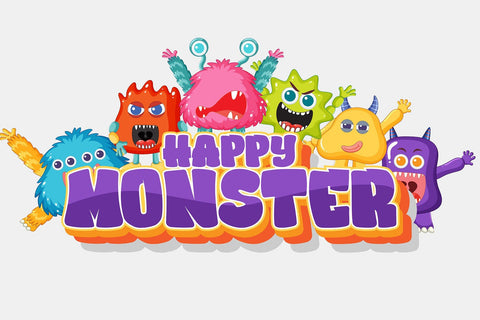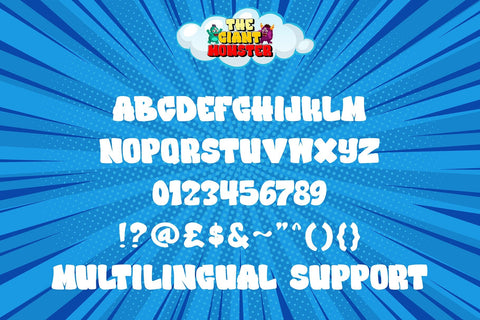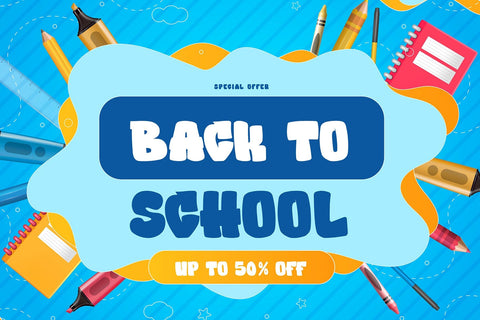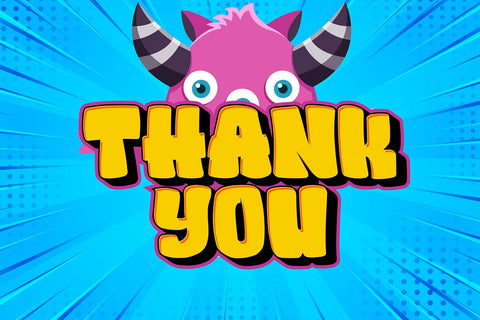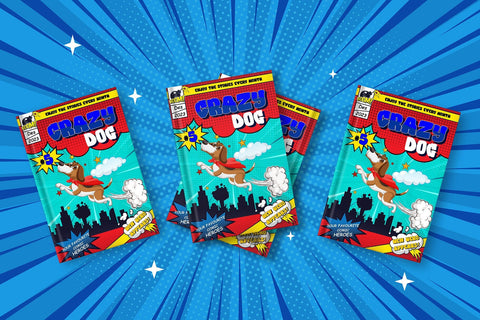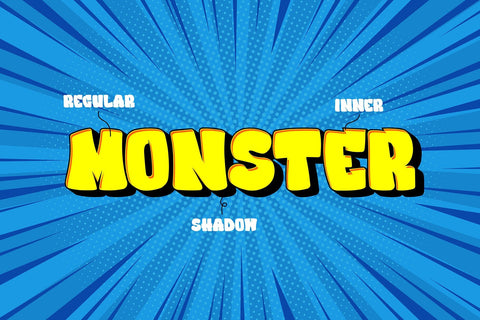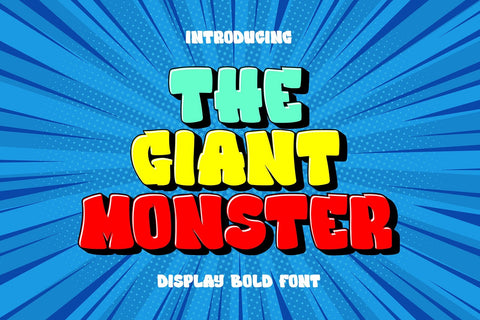
The Giant Monster - 3d Display Font
"The Giant Monster" is a bold 3D display font featuring solid, inner, and shadow characters. Fonts like this offer various styles within the same typeface, providing depth and dimension to the text.
The solid characters provide a bold and straightforward appearance, while the inner characters offer depth and a three-dimensional effect within the letterforms. The shadow characters contribute to the font's depth by adding shadowing or highlighting behind each character.
- Graffiti Characters looks